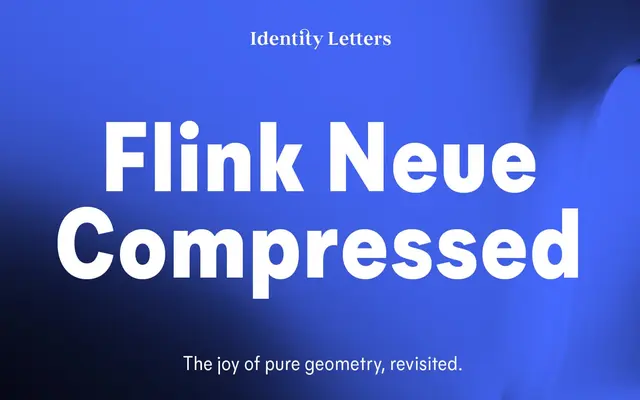
Flink Neue Compressed
A compressed geometric sans in three subfamilies spanning nine weights with italics, drawing on Bauhaus-era and early twentieth-century geometric traditions.
The family splits into three optical subfamilies: a standard display cut, a Text variant optimised for smaller sizes, and a Bauhaus cut with alternate letterforms referencing early modernist conventions. All three share nine weights from Thin to Black with matching italics, giving 54 fonts in total. OpenType features include small capitals, old-style figures, discretionary ligatures and multiple figure sets.
Explicitly positioned as Identity Letters' take on the geometric sans genre, drawing on Bauhaus-era conventions. Clean, focused construction with circular forms is characteristic of geometric sans classification.